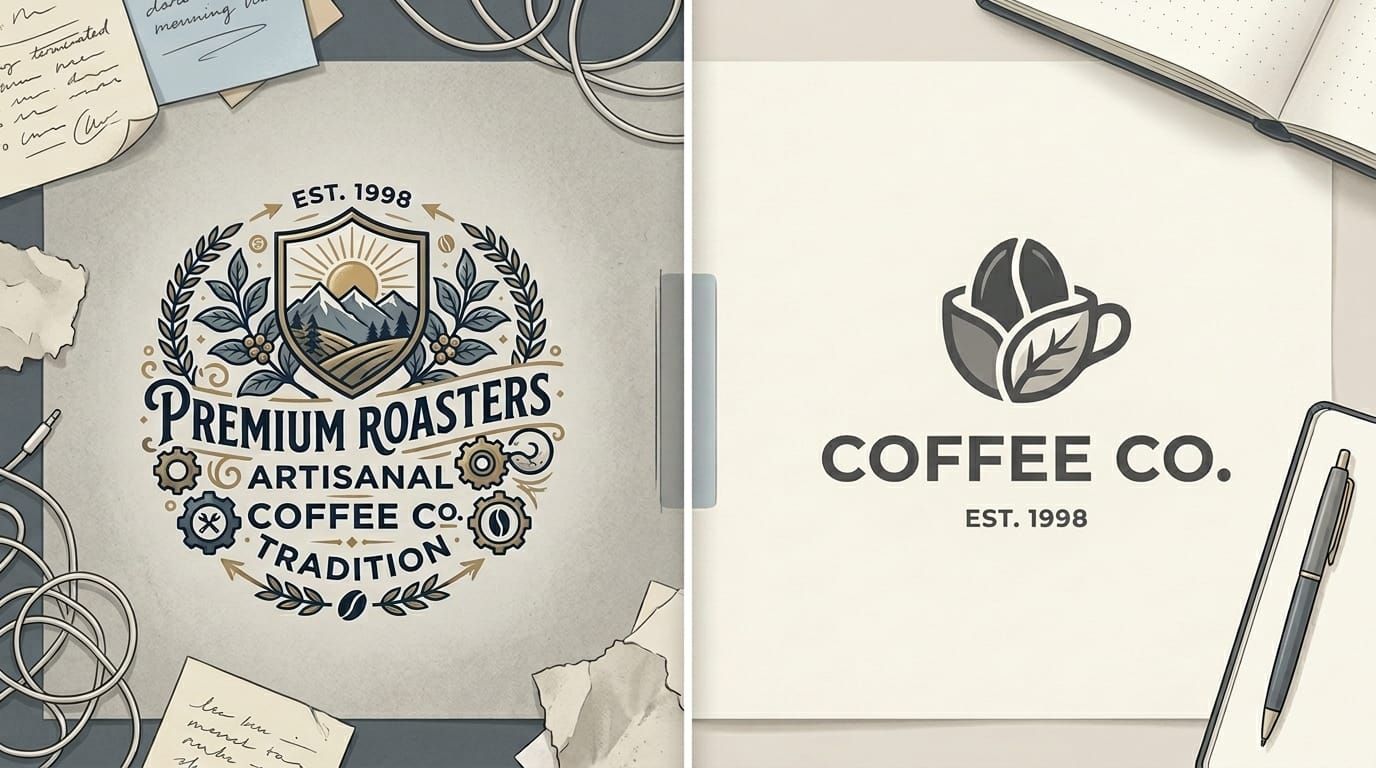
Minimal Logo Design Techniques for Professional Results
If you want to create a strong and modern brand identity, mastering minimal logo design is essential. In today’s visual landscape, simplicity often leads to better recognition and stronger impact. Many successful brands rely on minimal logo design because it communicates clearly and works across multiple platforms.
This guide will walk you through practical minimal logo design techniques that help you create clean, professional, and timeless logos. Whether you are a brand designer or building a startup, these strategies will improve your results.
Why Minimal Logo Design Works for Modern Brands
The strength of modern minimal logo lies in its simplicity. It removes unnecessary elements and focuses on what truly matters.
Benefits of modern minimal logo include:
• Better readability
• Strong brand recognition
• Easy scalability
When done correctly, modern minimal logo creates logos that are both memorable and versatile.
Core Principles of Minimal Logo Design
To succeed with simple logo design, you need to understand its core principles.
1. Simplicity and Clarity
Keep your design clean and easy to understand.
2. Functionality Across Sizes
Your simple logo design should look good on everything from websites to mobile screens.
3. Timeless Approach
Avoid trends that may fade quickly.
4. Purposeful Elements
Every detail in minimal logo design should have a clear reason.
These principles form the foundation of effective simple logo design.
Minimal Logo Design Techniques for Clean Visual Identity
Applying the right clean logo design techniques can instantly improve your work.
1. Use Basic Shapes
Simple geometric shapes create strong and recognizable logos.
2. Limit Color Usage
Stick to one or two colors for a cleaner look.
3. Focus on Negative Space
Negative space can add creativity without complexity.
4. Reduce Details
Remove anything that does not add value.
These clean logo design techniques help create a refined visual identity.
Typography in Minimal Logo Design
Typography plays a key role in simple logo design.
1. Choose Simple Fonts
Sans-serif fonts often work best.
2. Adjust Spacing Carefully
Proper spacing improves readability.
3. Keep It Balanced
Typography should align with the overall design.
Strong typography enhances your simple logo design and keeps it professional.
Color Strategy in Minimal Logo Design
Color is an important part of simple logo design, even when used sparingly.
1. Use Neutral Colors
Black, white, and gray are common choices.
2. Add One Accent Color
A single accent color can create focus.
3. Maintain Consistency
Consistency strengthens your brand identity.
Applying these color strategies improves your simple logo design results.
Common Mistakes in Minimal Logo Design
Even simple designs can go wrong without proper execution.
1. Over-Simplifying
Removing too much can make your logo meaningless.
2. Lack of Distinction
Your simple logo design should still be unique.
3. Ignoring Brand Context
The design must reflect your brand.
4. Poor Alignment
Even small alignment issues can affect quality.
Avoiding these mistakes will strengthen your simple logo design.
Minimal Logo Design Workflow for Designers
A structured workflow helps you create better simple logo design outcomes.
1. Understand the Brand
Define the brand’s values and audience.
2. Research and Inspiration
Explore existing designs for ideas.
3. Sketch Concepts
Start with simple sketches.
4. Refine Digitally
Use design tools to polish your logo.
5. Test Across Platforms
Ensure your simple logo design works in different contexts.
This workflow ensures consistency and quality.
Tools for Minimal Logo Design
Using the right tools can simplify your simple logo design process.
Popular tools include:
These tools help you execute your simple logo design efficiently.
How Minimal Logo Design Improves Brand Identity
A strong simple logo design enhances your overall branding.
It helps:
• Build trust
• Improve recognition
• Maintain consistency
When your simple logo design is clear and professional, your brand becomes more memorable.
Final Thoughts on Minimal Logo Design
Mastering minimal logo design is about finding the balance between simplicity and meaning. You don’t need complex elements to create a powerful logo.
Focus on clarity, consistency, and purpose. Over time, these minimal logo design techniques will help you create logos that look professional and stand the test of time.